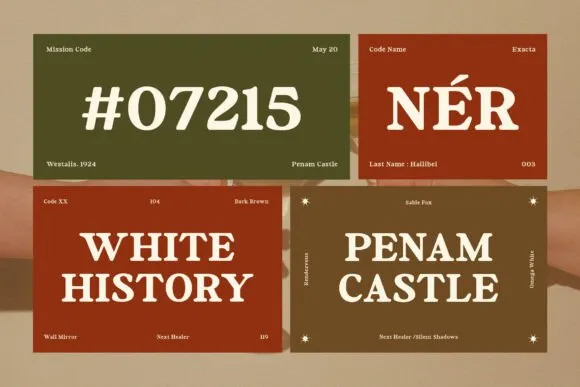
Girlkick Font is a jazzy and exemplary retro strong extended serif textual style.
Its smooth plan offers a hint of extravagance and polish, making it ideal for projects that require an elegant and top of the line stylish, for example, marking, extravagance bundling, logo configuration, design magazines, publication plan, and any task that requires a bit of extravagance and exemplary.
Lift your marking configuration projects with Girlkick Font